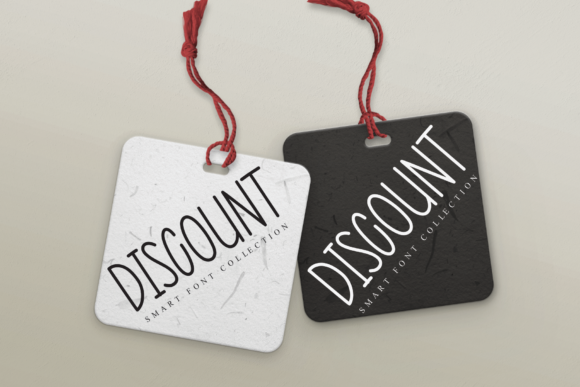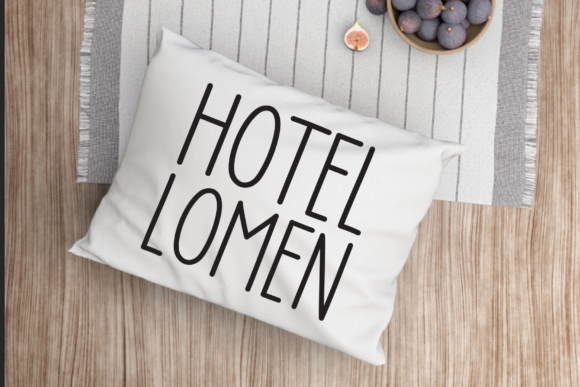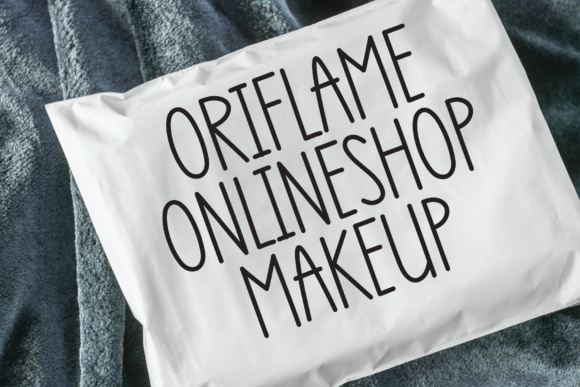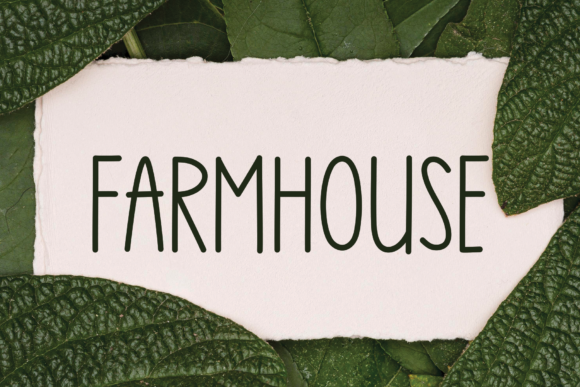
Introducing Creative Creation Font: Unleash Your Imagination
Are you tired of using the same old fonts for your creative projects? Look no further! Creative Creation Font is a unique and interesting display font that’s sure to add a touch of personality to your designs. A little bit quirky, this font is a great choice for a wide variety of contexts, from crafting and DIY projects to branding and advertising.
The Story Behind Creative Creation Font
Creative Creation Font was designed with creativity in mind. The font’s creator wanted to craft a typeface that would inspire designers and crafters to think outside the box and push the boundaries of their imagination. With its playful and whimsical feel, Creative Creation Font is the perfect tool for anyone looking to add a dash of personality to their work.
What Makes Creative Creation Font So Special?
So, what sets Creative Creation Font apart from other fonts out there? Here are just a few of its unique features:
- Quirky and Playful: Creative Creation Font has a fun and quirky feel that’s sure to add a touch of personality to your designs.
- Highly Versatile: This font is perfect for a wide range of contexts, from crafting and DIY projects to branding and advertising.
- Easy to Read: Despite its playful feel, Creative Creation Font is still highly legible, making it perfect for use in both digital and print applications.
- Unique Character Set: Creative Creation Font includes a wide range of characters, including uppercase and lowercase letters, numbers, and punctuation marks.
Uses for Creative Creation Font
So, what can you use Creative Creation Font for? The possibilities are endless! Here are just a few ideas to get you started:
- Crafting and DIY Projects: Add a touch of personality to your crafting and DIY projects with Creative Creation Font. Use it to create custom signs, labels, and other embellishments.
- Branding and Advertising: Use Creative Creation Font to add a dash of whimsy to your branding and advertising materials. It’s perfect for creating eye-catching logos, posters, and flyers.
- Digital Applications: Creative Creation Font is perfect for use in digital applications, such as social media graphics, blog posts, and website headers.
- Print Applications: This font is also highly suitable for use in print applications, such as brochures, business cards, and invitations.
Tips for Using Creative Creation Font
Here are a few tips for getting the most out of Creative Creation Font:
- Experiment with Different Sizes: Creative Creation Font looks great in a variety of sizes, from large display fonts to smaller body text.
- Pair it with Other Fonts: Try pairing Creative Creation Font with other fonts to create a unique and interesting contrast.
- Use it to Add Emphasis: Use Creative Creation Font to add emphasis to certain words or phrases in your designs.
In conclusion, Creative Creation Font is a unique and interesting display font that’s sure to add a touch of personality to your designs. With its quirky and playful feel, highly versatile nature, and ease of use, this font is perfect for designers and crafters looking to unleash their imagination. So why not give it a try and see what creative creations you can come up with?